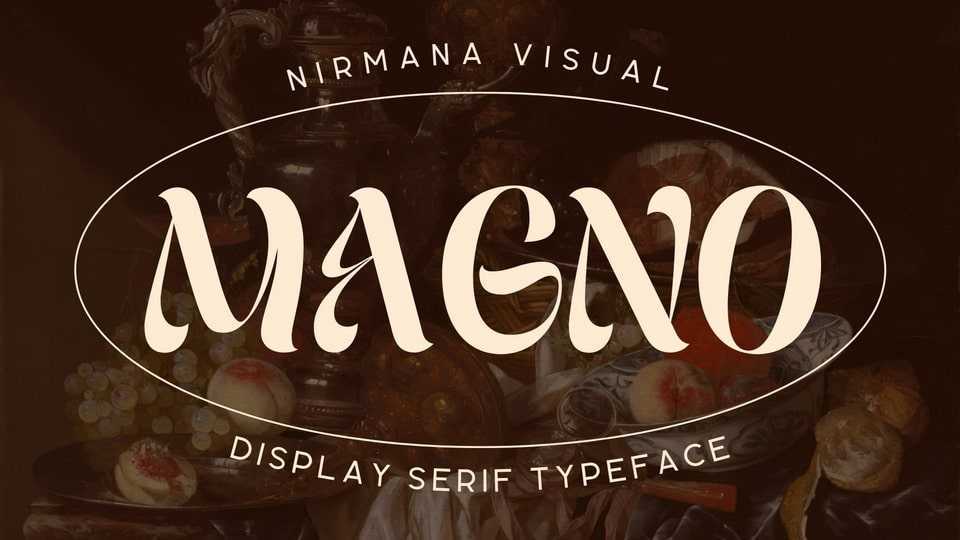
Download Magno font, a contemporary display typeface that offers beautiful typographic harmony. Magno is perfect for a diversity of design projects such as logos, branding, social media posts, advertisements, product designs, and many more!